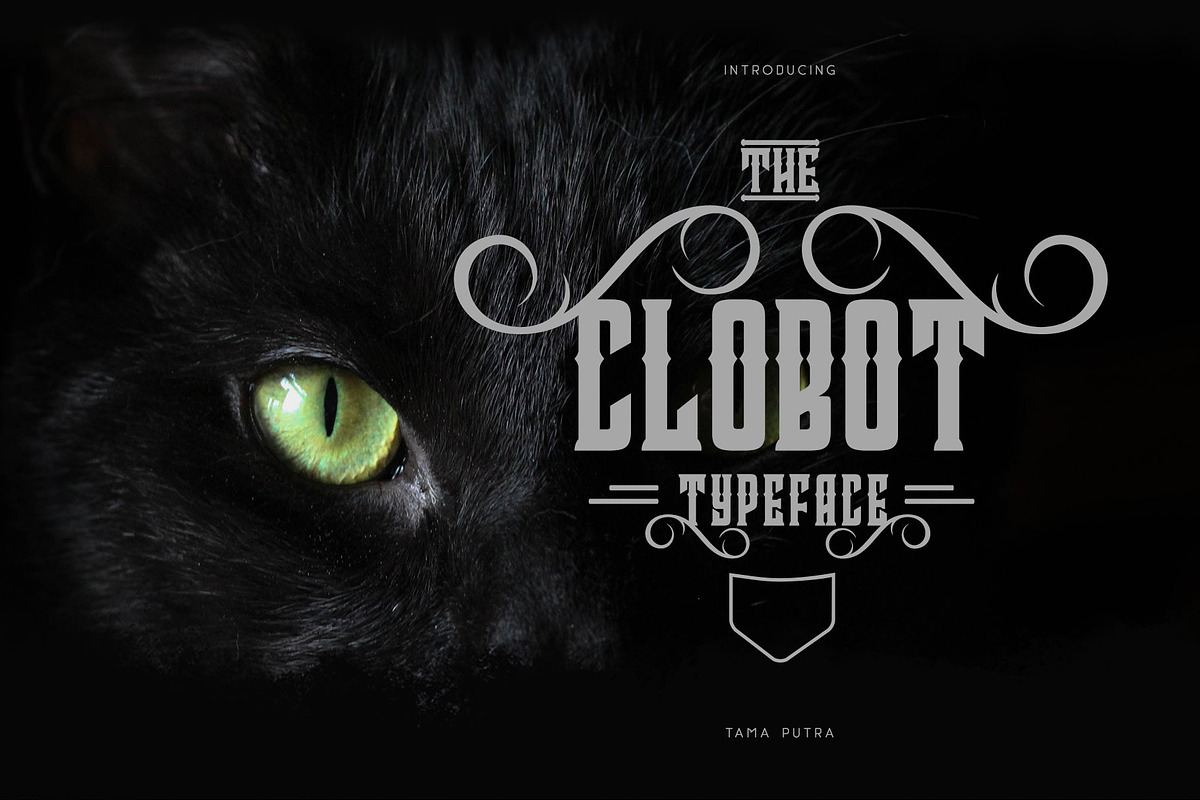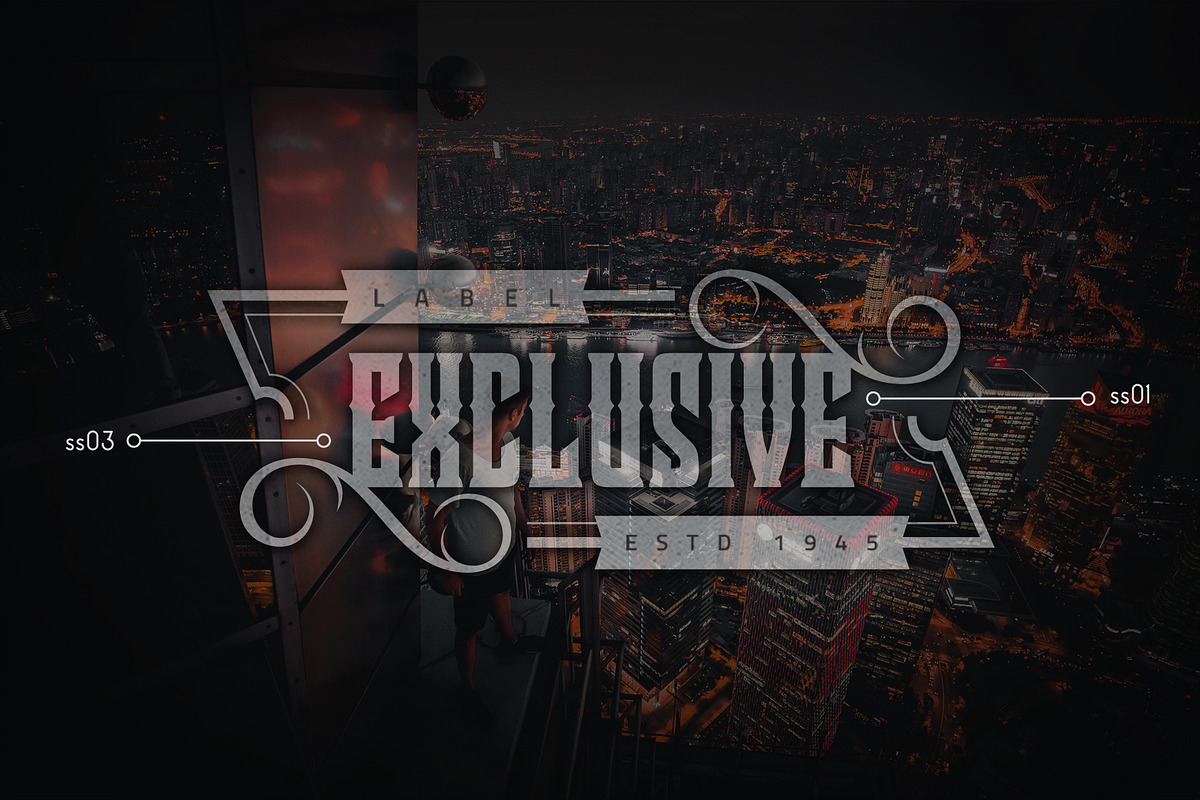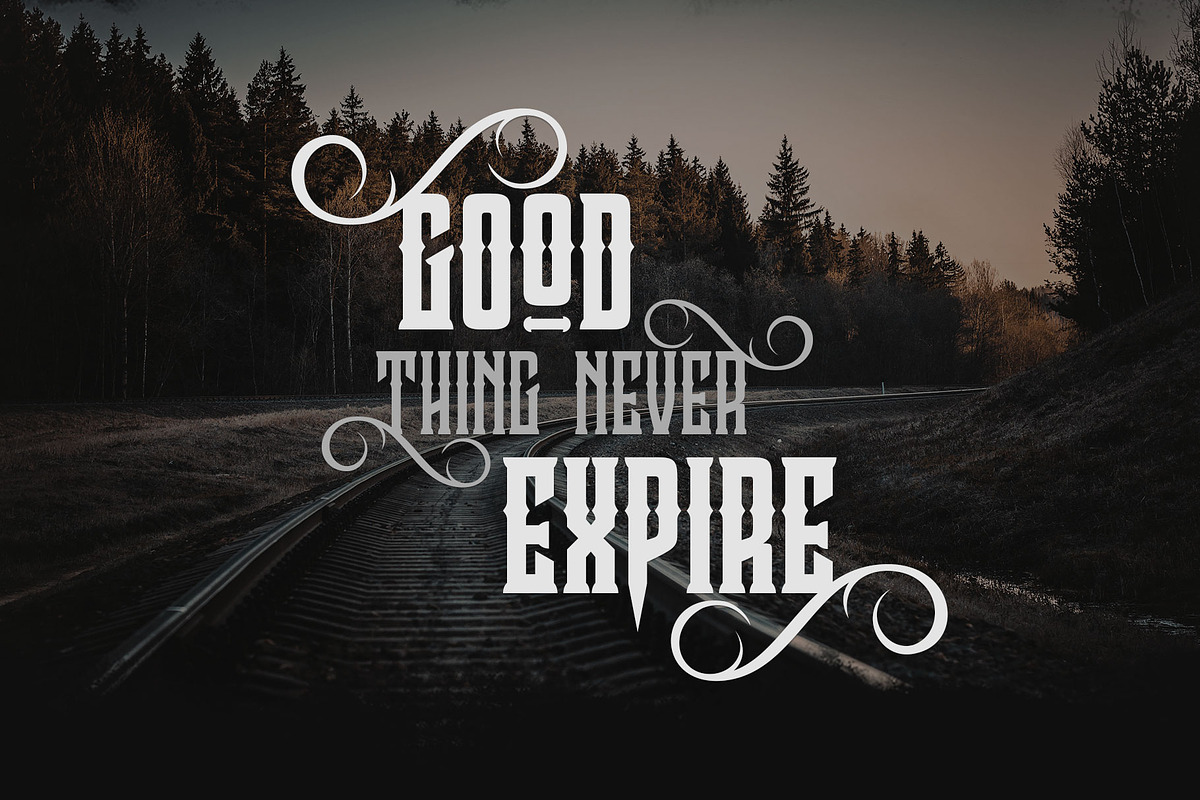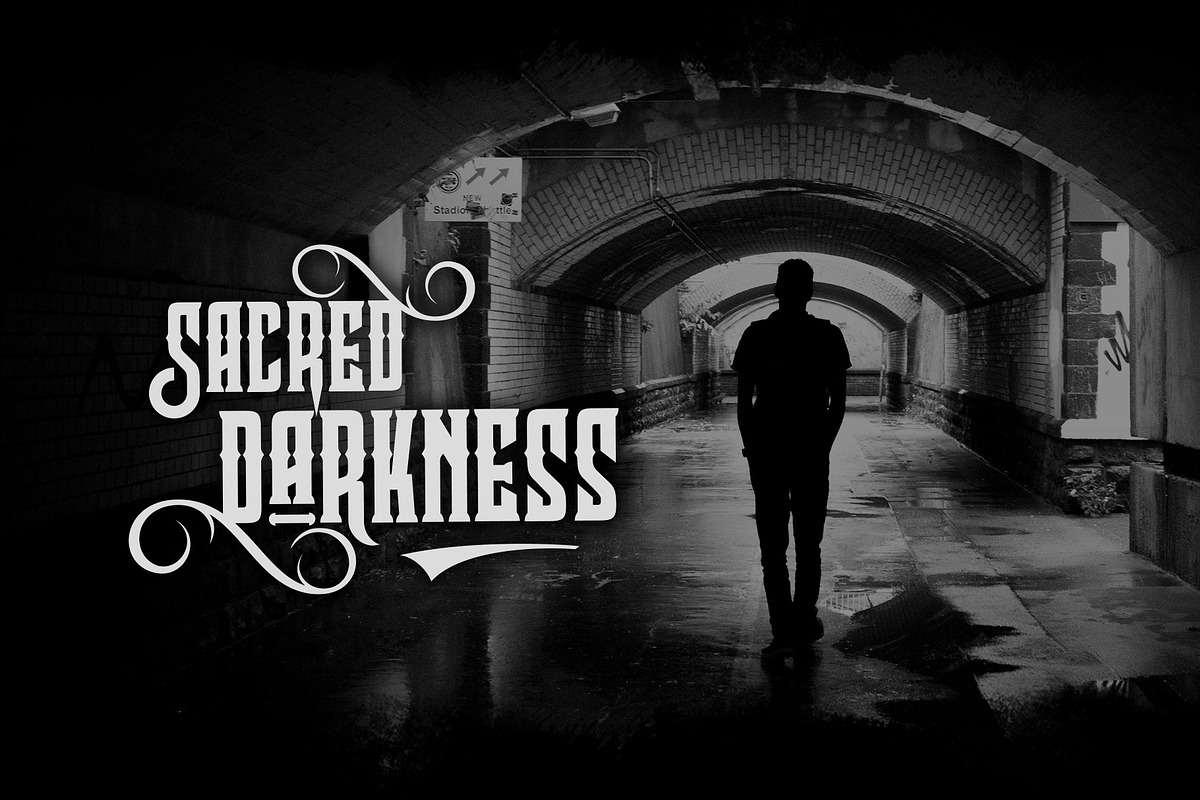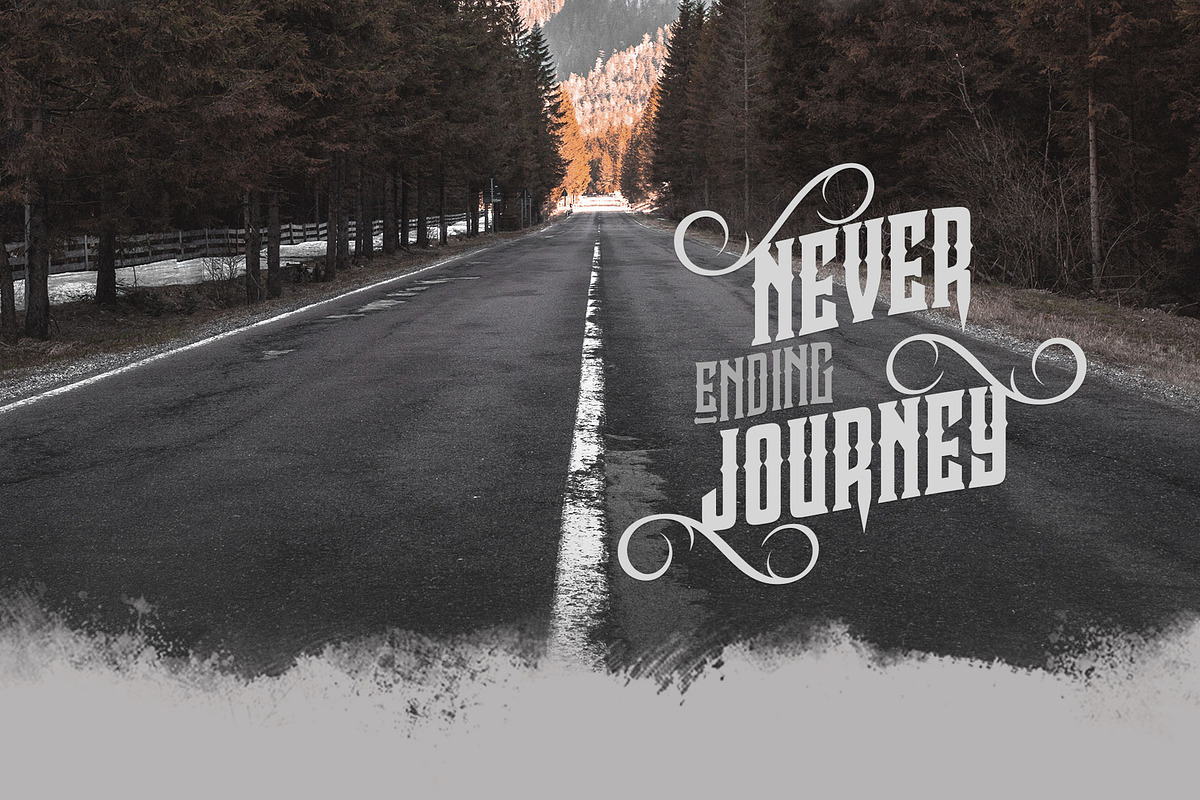
Clobot Decorative Typeface
Clobot Typeface
Clobot is a tough and strong decorative display typeface. It has many alternative and ligature glyphs which make it very versatile font and it has multi-lingual also. It provides flexibility to enhance your designs.
- Character Set A-Z (Uppercase & Lowercase)
- Titling
- ss01, ss02, ss03, ss04, ss05, ss06, ss07, ss08, ss09, ss10
- Discretionary Ligatures
This typeface can be put to many uses:
- Poster
- Banner Design
- T-shirt
- Another end products
Clobot typeface is suitable font for creating beautiful things and many creative work.